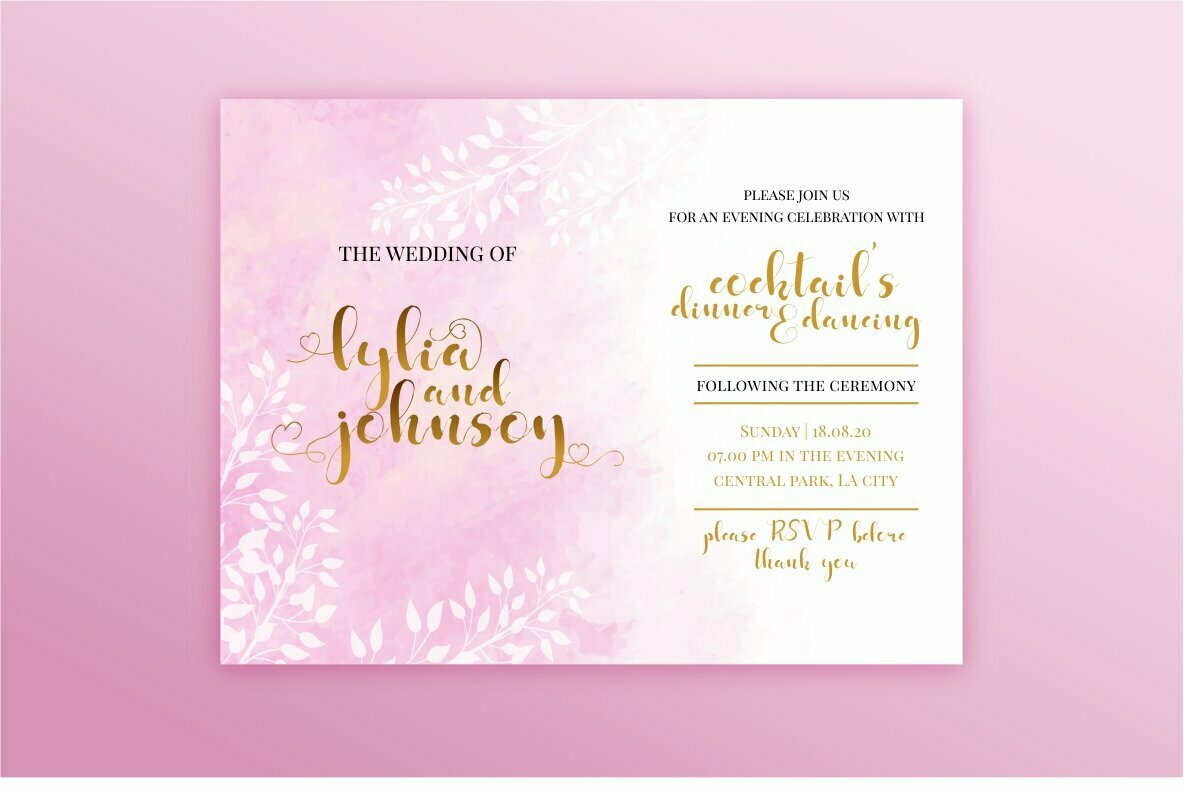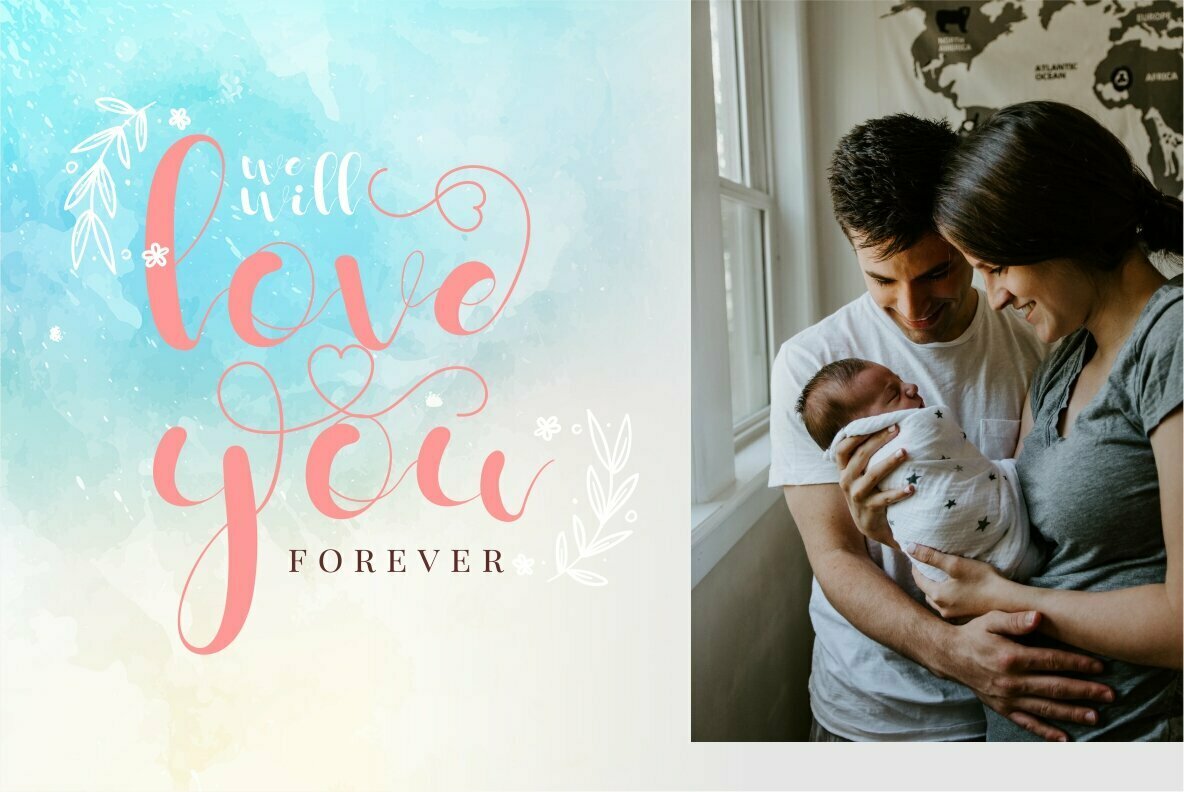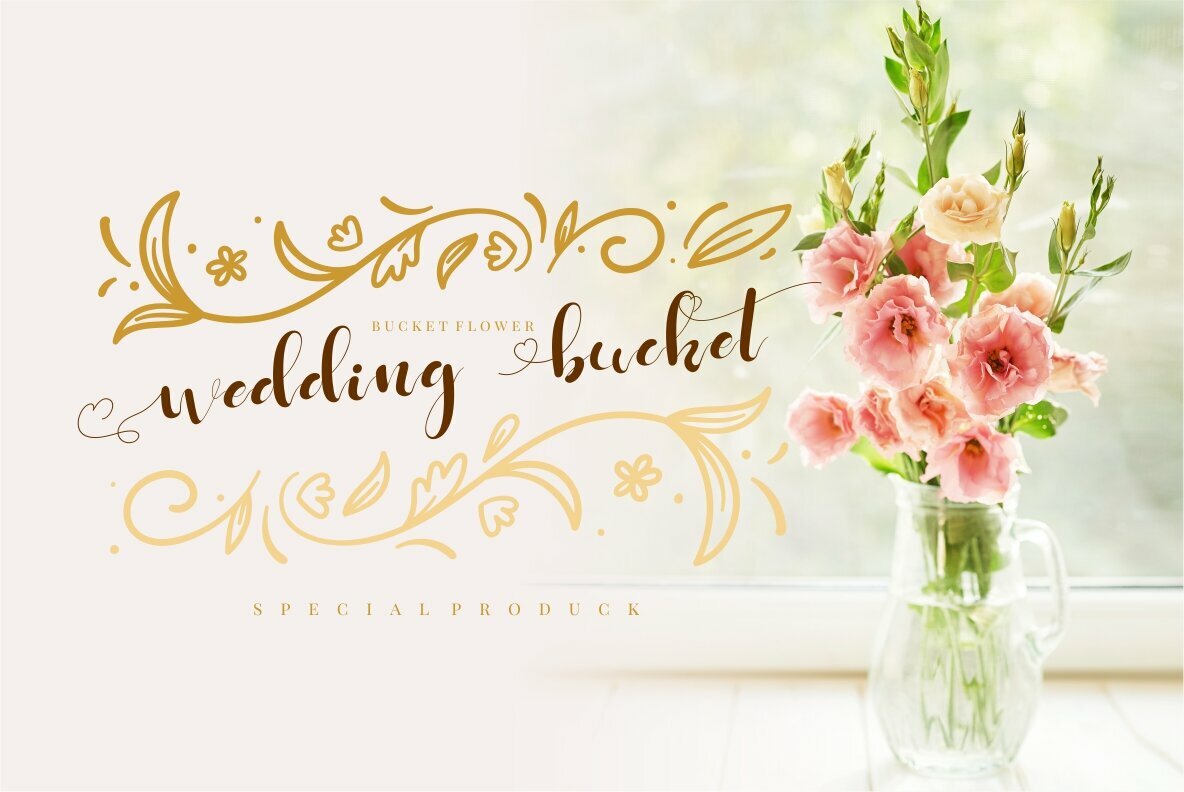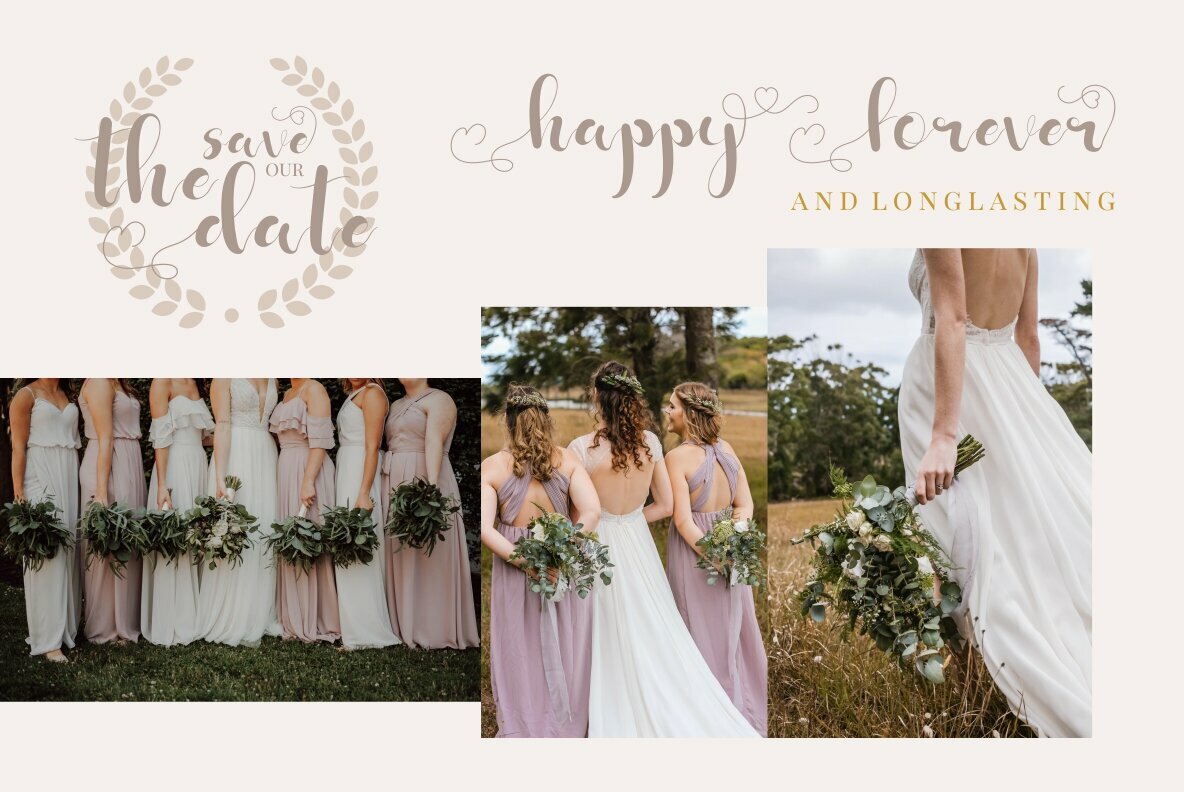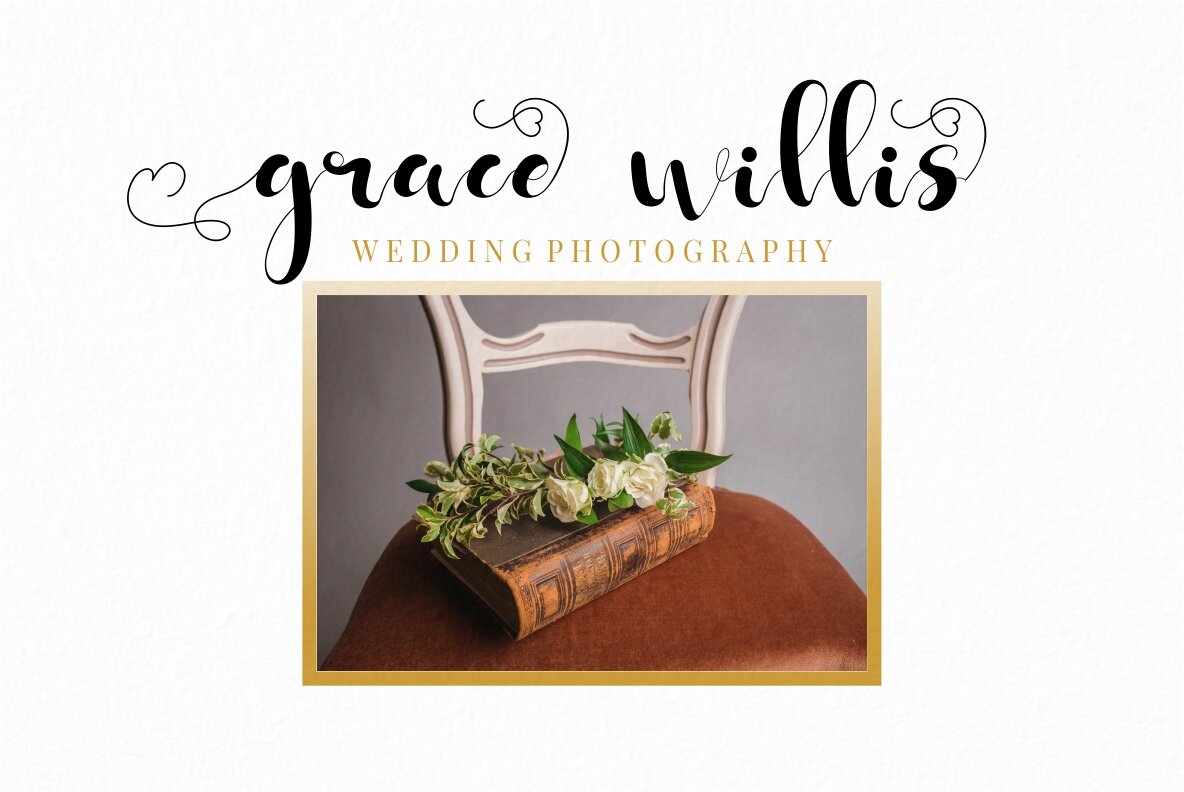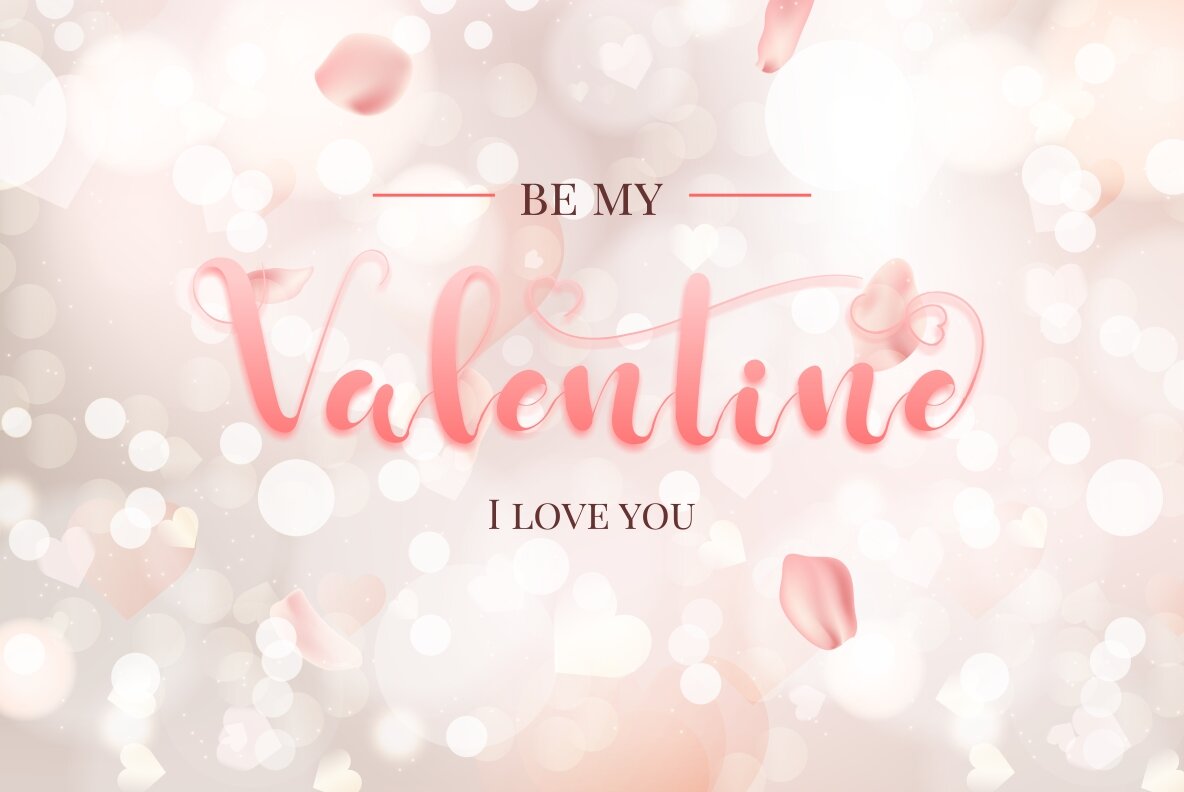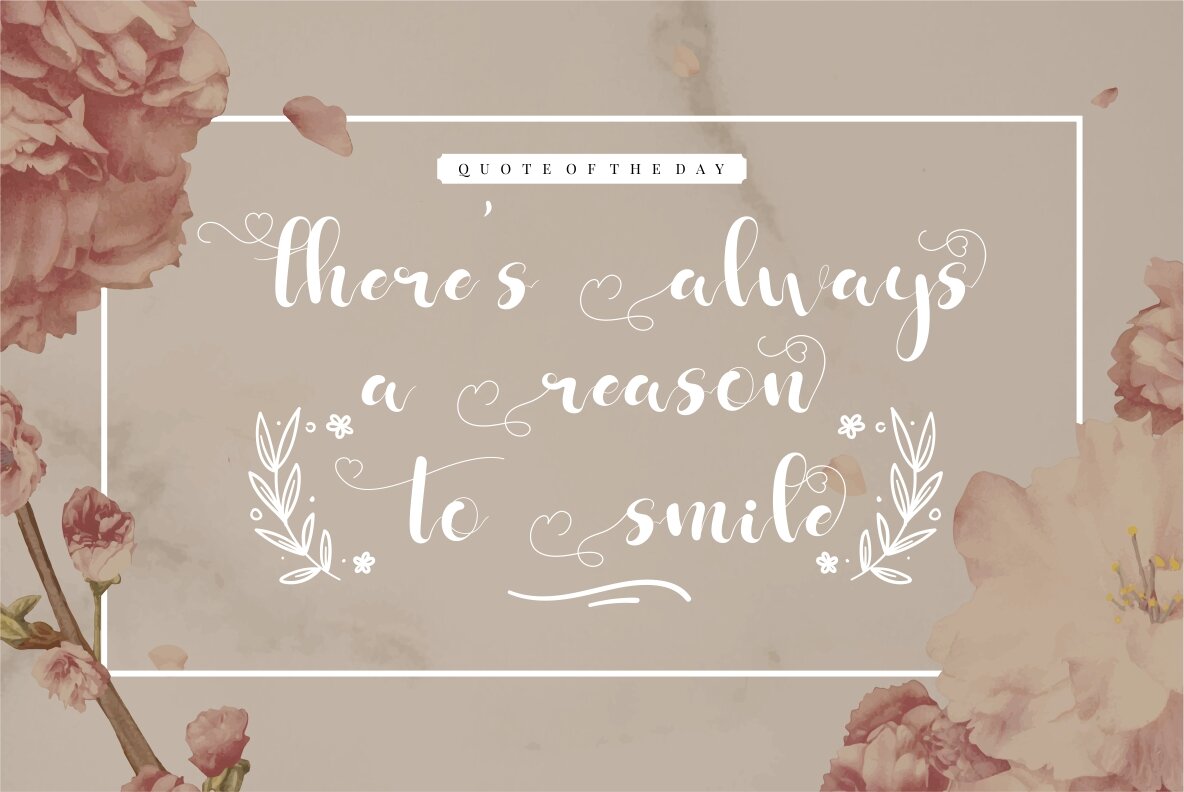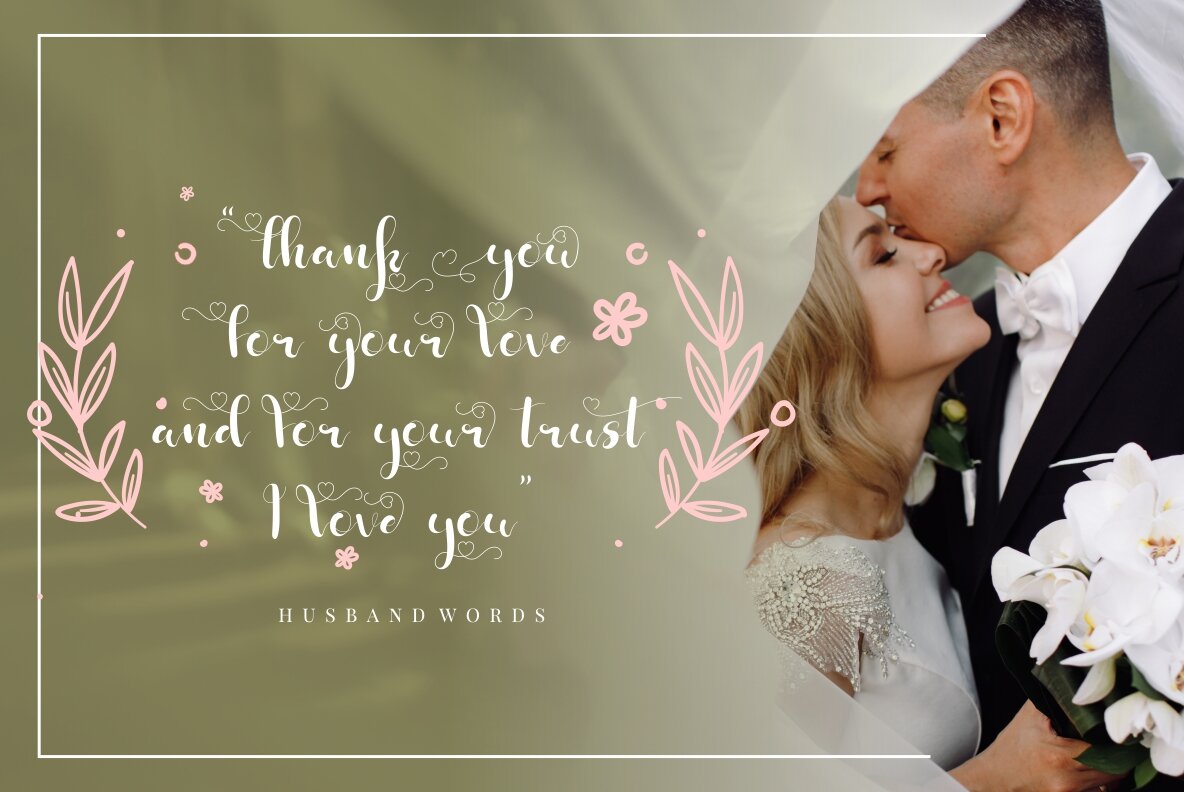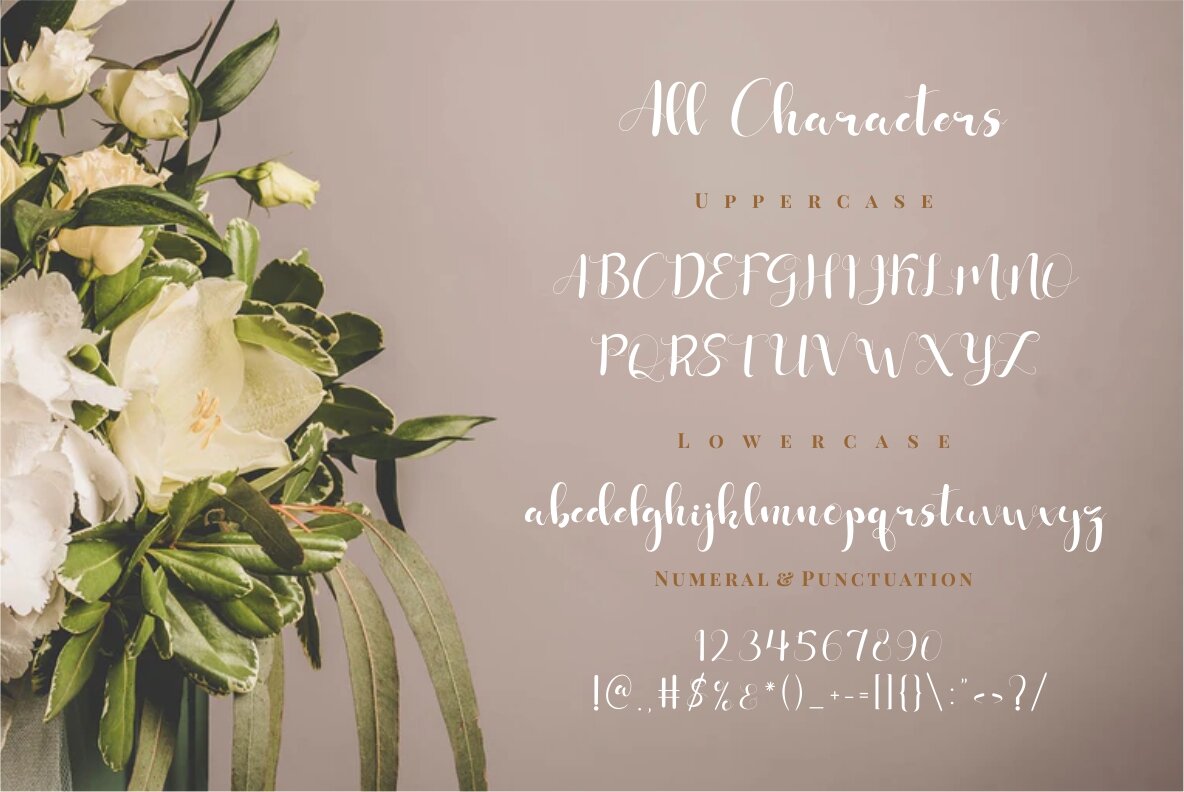
Shafiqa Font
Shafiqa
Shafiqa is a beautifully crafted handwriting script font that exudes romance and elegance. It's designed with open type features that include a plethora of alternates, offering endless possibilities for creative and impactful lettering. This font is perfect for adding a touch of sophistication to headings, covers, posters, logos, quotes, and product packaging. It is also an excellent choice for crafting stunning headers, merchandise designs, social media graphics, and greeting cards. Features: Shafiqa is compatible with programs that support OpenType features, such as Adobe Illustrator, Photoshop, InDesign, and Corel Draw, ensuring that designers can easily access its alternate glyphs for maximum creative impact.Shafiqa: A Romantic Handwriting Script Font